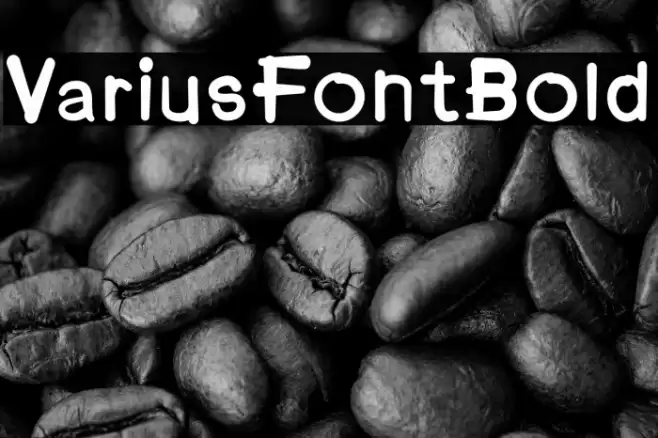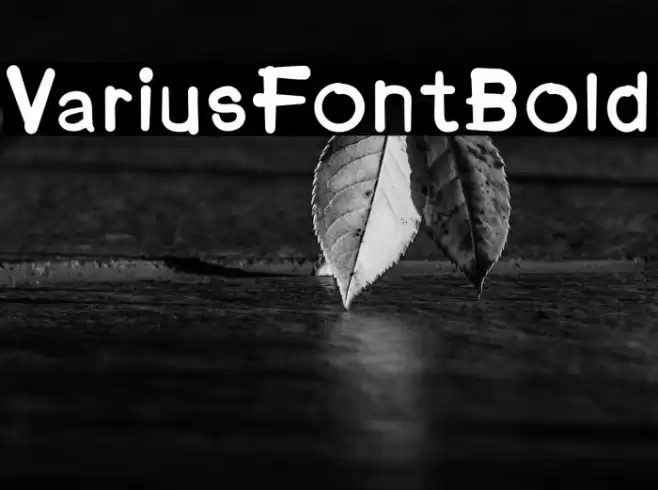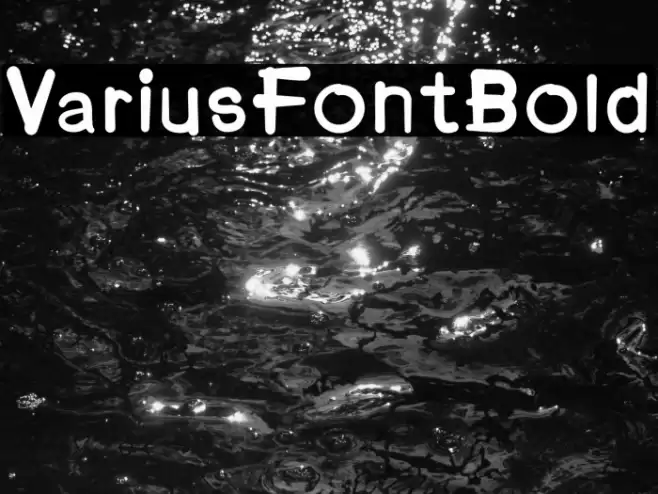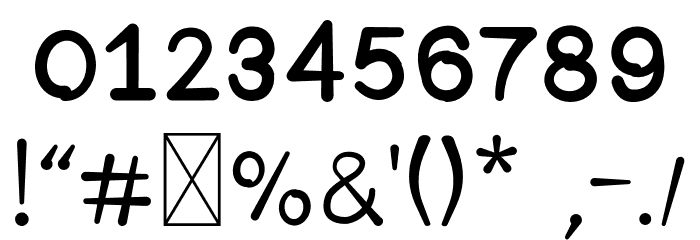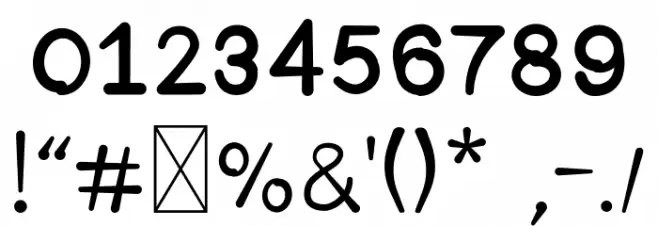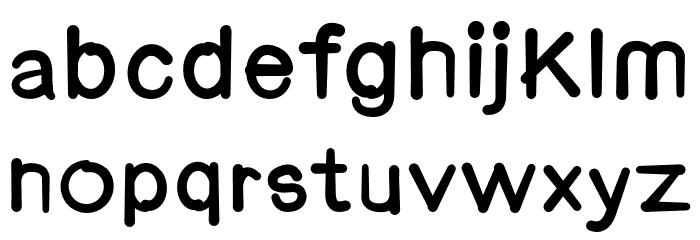
VariusFontBold Font
VariusFontBold Description
This font features a playful and bold style with rounded edges and a slightly irregular form, giving it a hand-drawn appearance. The characters are thick and substantial, making them highly visible and impactful. The uppercase letters are consistent in height, while the lowercase letters maintain a uniform baseline with some variations in ascenders and descenders. The numerals are bold and clear, matching the overall style of the alphabet. Special characters are included, maintaining the same bold and playful aesthetic. This font is suitable for projects that require a fun and engaging look.
A bold, playful font with rounded edges and a hand-drawn feel from Uncategorized fonts.
- Proposed Projects: Ideal for children's books, playful branding, posters, and creative projects.
- Overall Style: Playful